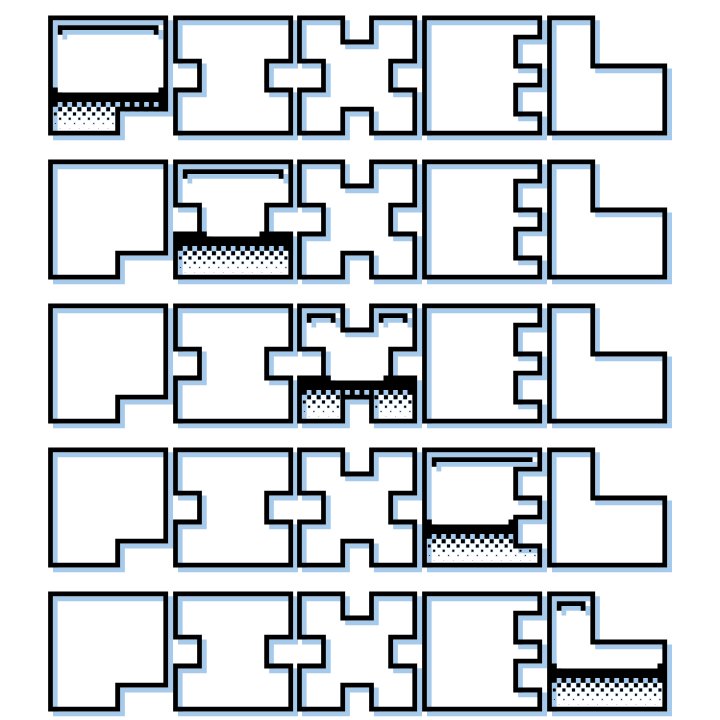
@Fardilizer (StinkyFard) - Congratulations on the top pick.  I especially like the pixel gradient / chrome effect.  :^)
@Goatmeal, thanks so much for the support, the chrome effect is kind of inspired by old neon fonts I used to see everywhere
So old! (perfection lul)